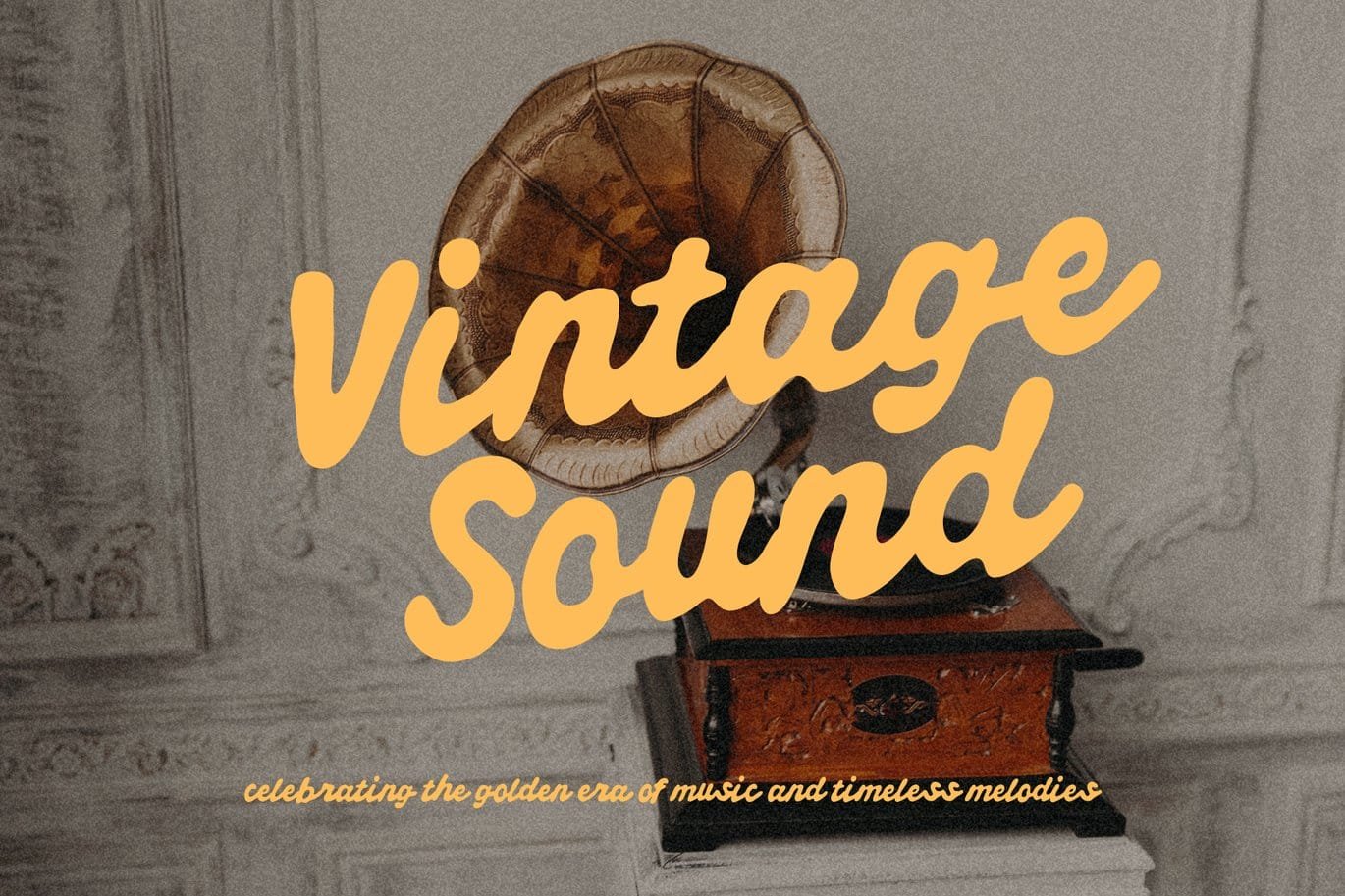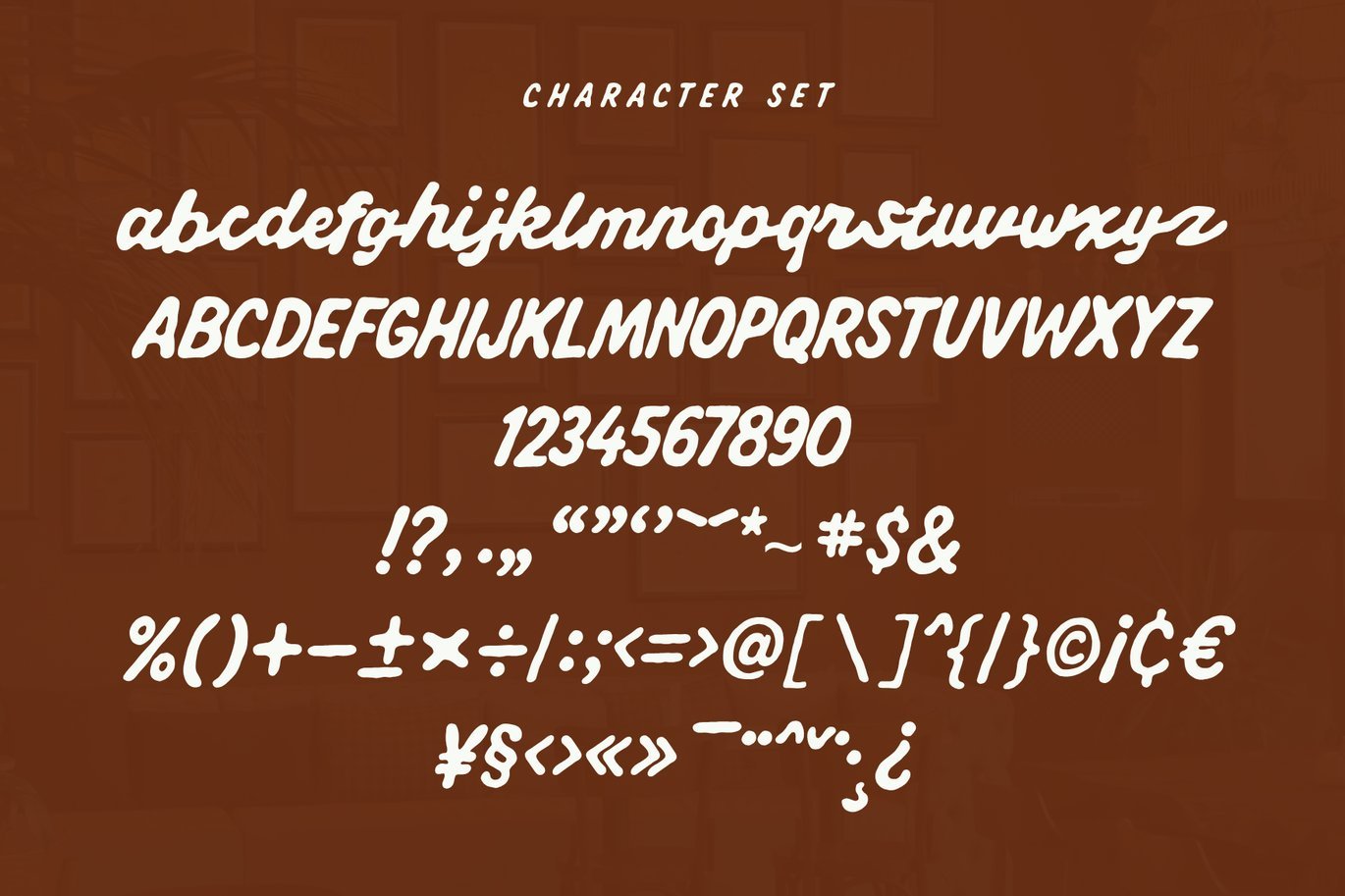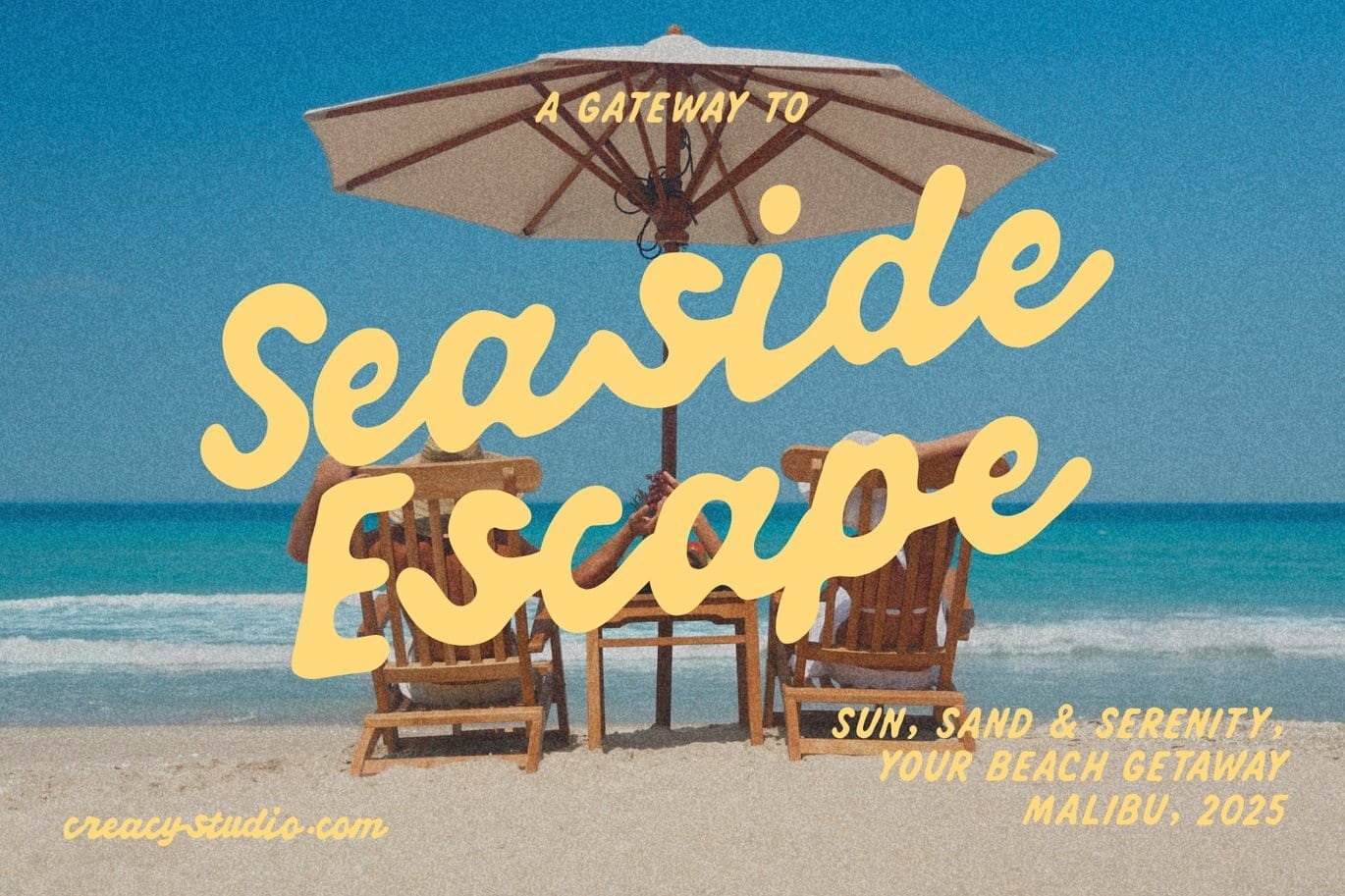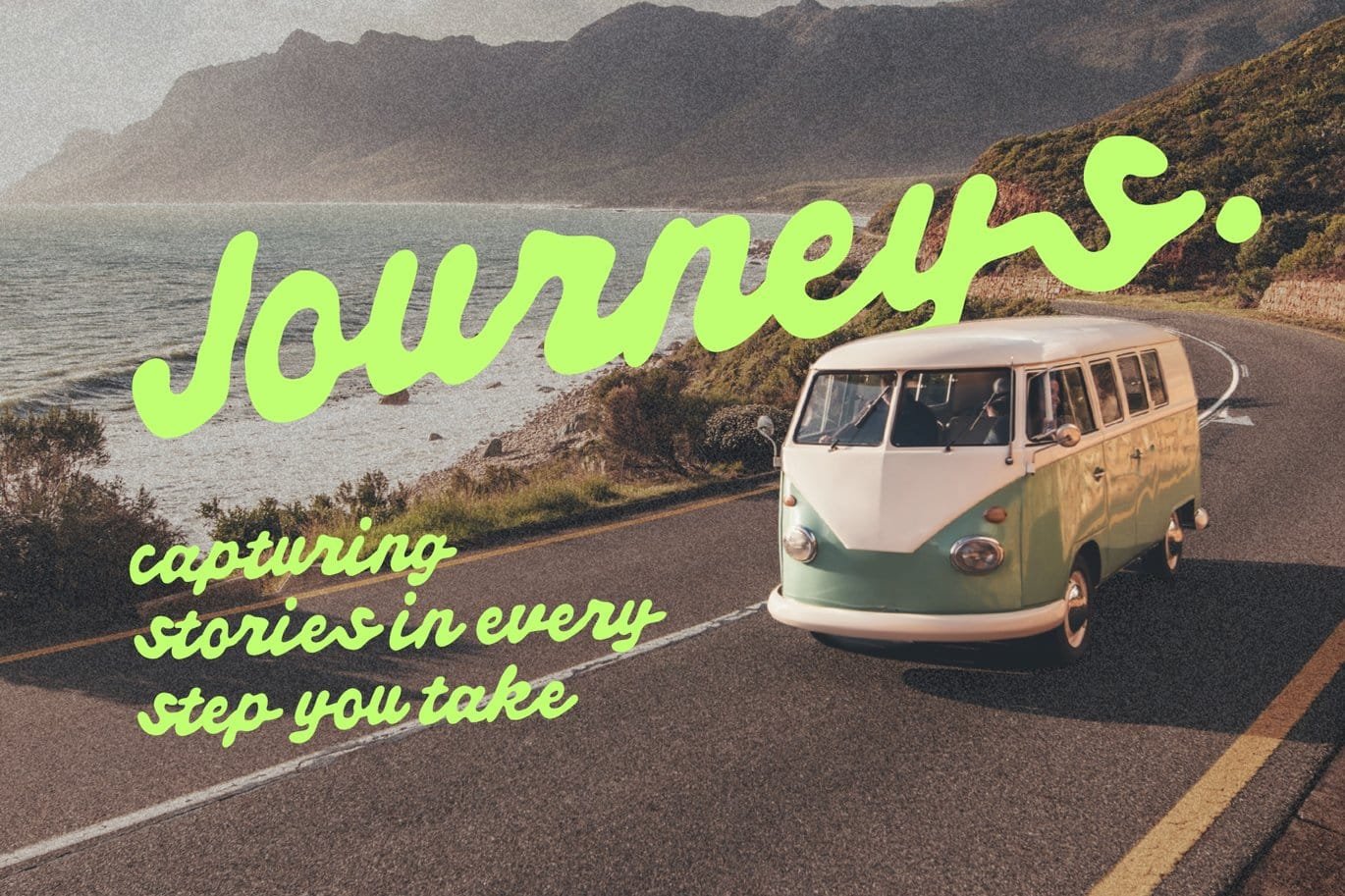
Oldport Script – Nostalgic Handwritten Typeface Font
Oldport Script – Nostalgic Handwritten Typeface
Oldport Script is a bold handwritten typeface inspired by the warmth of retro aesthetics. Its flowing letterforms and smooth curves capture a nostalgic feel while remaining versatile and easy to read.
Perfect for logo design, branding, posters, packaging, travel themes, café menus, and social media graphics, Oldport Script adds personality and a timeless touch to any project.
- Uppercase & lowercase
- Numbers & punctuation
- Smooth, bold strokes for high readability
- Ideal for retro, travel, coffee, and lifestyle themes